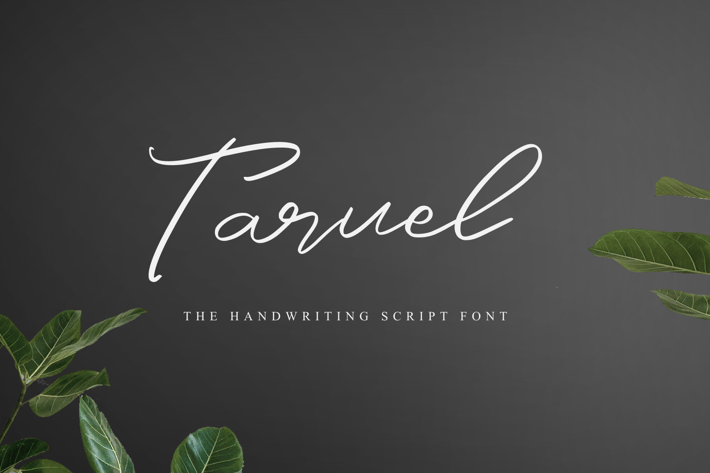
Taruel - The Handwriting Script Font
Taruel - The Handwriting Script Font, it’s perfect for logos, name card, magazine layouts, invitations, headers, or even large-scale artwork.
- Multilingual support for various languages